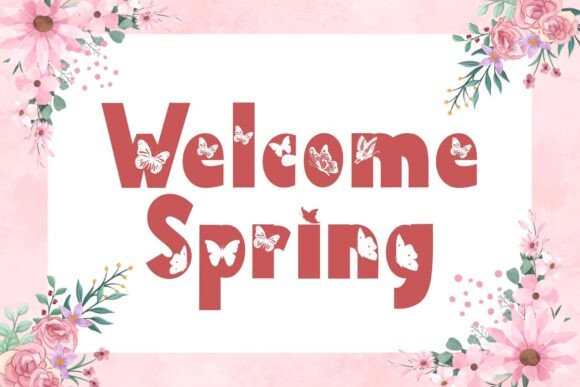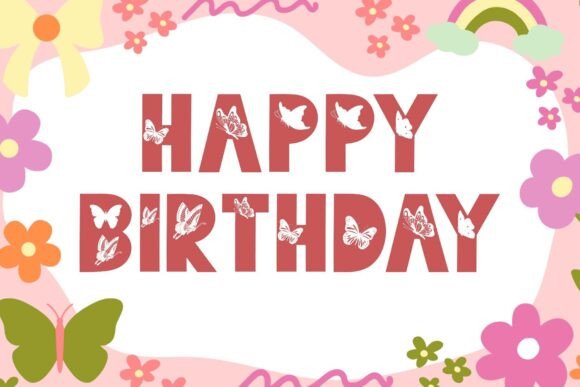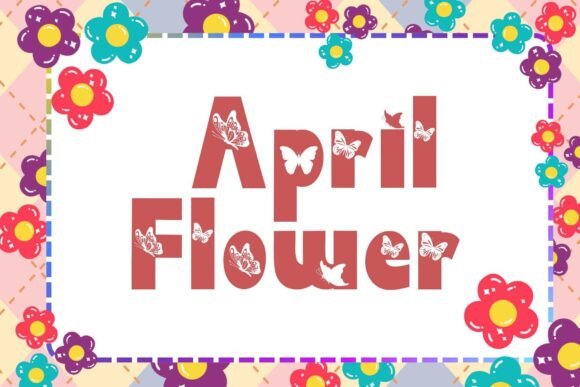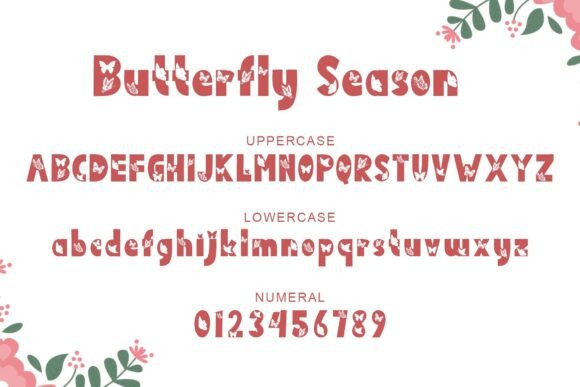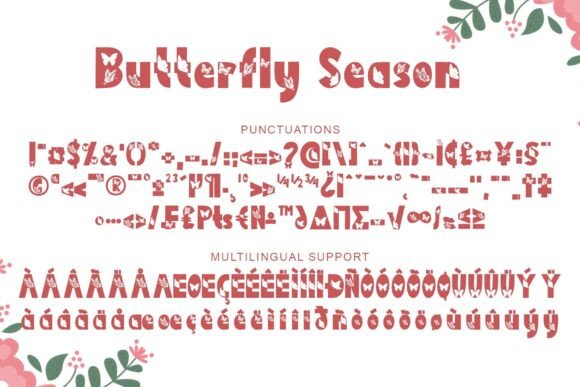
The Perfect Design for Spring: Unveiling the Butterfly Season Font
Have you ever found yourself gazing out at a sea of blooming flowers, watching as a delicate butterfly flits from petal to petal? For designers, those moments of beauty can spark a creative vision – and that’s exactly what the Butterfly Season Font is all about.
This charming display font is more than just a pretty face; it’s a tool designed to bring a touch of whimsy and wonder to your designs. With its intricate butterfly decorations adorning each letter, the Butterfly Season Font is perfect for spring and summer projects, from posters and banners to branding and logos. Whether you’re looking to add a playful touch to your next design or simply want to inject some seasonal magic, this font is sure to deliver.
Butterfly Season Font Key Features
- Unique Characteristics: The font features a unique blend of hand-drawn and digital elements, resulting in a distinctive and elegant aesthetic that is perfect for creative projects.
- Script and Style Options: The font includes multiple script and style options, including swashes, flourishes, and ligatures, allowing designers to add a personal touch to their work.
Butterfly Season Font Review
As a designer, I’m always on the lookout for unique and captivating fonts to add some flair to my projects. Butterfly Season Font caught my eye, and I decided to give it a try. Here’s my honest review.
- The intricate details and organic feel of the font make it perfect for adding a touch of whimsy to projects.
- The font is highly customizable, allowing for a wide range of colors and styles to suit different design needs.
- The font is also highly legible, making it suitable for body text and titles alike.
- The font may not be the best choice for formal or corporate projects, as it has a more playful and artistic feel.
- The font can be quite busy and overwhelming in large quantities, so it’s best used in moderation.
Butterfly Season Font is a great addition to any designer’s toolkit. While it may have some limitations, its unique charm and high customizability make it a valuable asset for projects that require a touch of creativity. I’d definitely recommend giving it a try, but be mindful of its potential limitations.
Tips for Getting the Most Out of the Butterfly Season Font
The Butterfly Season Font is perfect for creating whimsical and playful designs. To get the most out of it, use it in combination with pastel colors and floral patterns.
The Butterfly Season Font is commonly used for:
- Birthday party decorations and invitations
- Children’s book illustrations and designs
Great Vibes is a modern script font that features elegant, flowing lines and a touch of whimsy. It’s perfect for designs that require a sense of playfulness and sophistication. Great Vibes is a great alternative to Butterfly Season Font for designers who want to create a similar feel without the script style.
Comparison: While Great Vibes shares a similar playful feel with Butterfly Season Font, it has a more refined and elegant appearance, making it suitable for a wider range of designs.